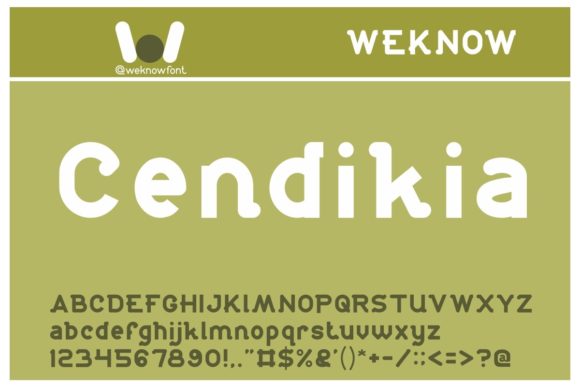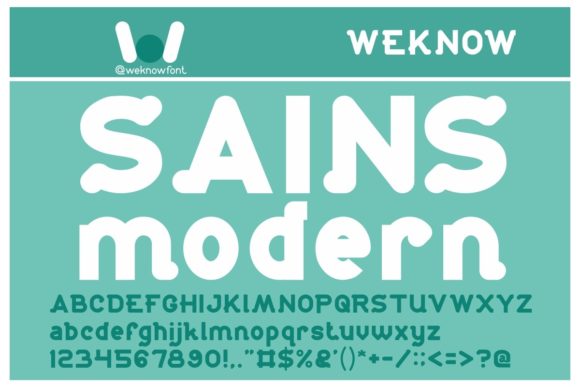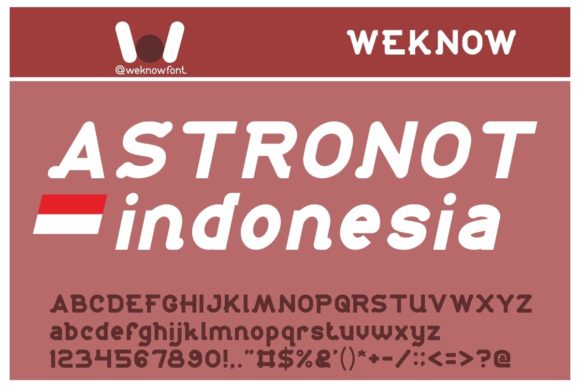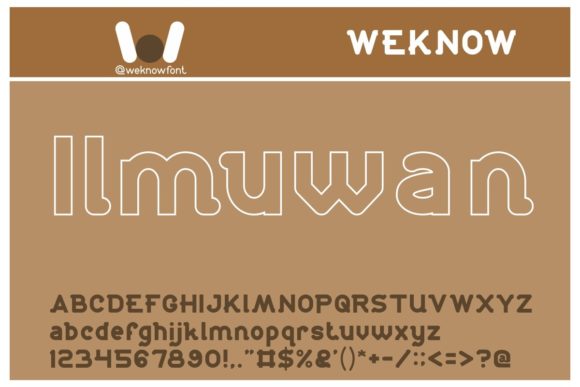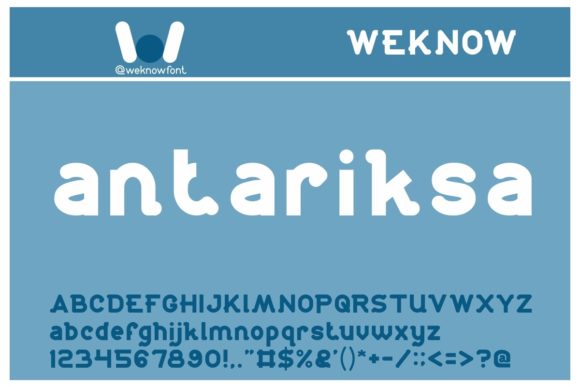
Introducing Antariksa Font: Elevate Your Designs with a Cool, Unique, and Techno-Looking Display Font
In the world of design, fonts play a crucial role in conveying the tone and personality of a brand or creative project. With the vast array of fonts available, it can be challenging to find the perfect one that stands out from the crowd. However, if you’re looking for a font that exudes a cool, unique, and techno vibe, look no further than Antariksa Font. This display font is an incredibly valuable asset to any designer’s font library, and we’re excited to dive into its features and benefits.
What is Antariksa Font?
Antariksa Font is a modern, techno-looking display font designed to add a touch of sophistication and edge to any creative project. Its unique and cool design makes it perfect for designers, crafters, and anyone looking to elevate their visual content. Whether you’re working on a branding project, creating a social media graphic, or designing a website, Antariksa Font is sure to make a statement.
Key Features of Antariksa Font
- Unique and Cool Design: Antariksa Font boasts a distinctive and stylish design that sets it apart from other fonts. Its techno look is perfect for projects that require a modern and edgy feel.
- Display Font: As a display font, Antariksa is optimized for large text sizes, making it ideal for headlines, titles, and other attention-grabbing elements.
- Versatile: Despite its techno look, Antariksa Font is surprisingly versatile and can be used across various industries and design applications.
- Easily Readable: Despite its stylized design, Antariksa Font remains easily readable, even at smaller sizes, making it perfect for body text and other smaller applications.
Benefits of Using Antariksa Font
So, why should you consider adding Antariksa Font to your design arsenal? Here are just a few benefits of using this incredible font:
- Instantly Elevate Your Designs: With Antariksa Font, you can instantly add a touch of sophistication and style to your designs, setting them apart from the competition.
- Perfect for Branding and Marketing: The unique and techno look of Antariksa Font makes it perfect for branding and marketing projects, where you want to make a bold statement.
- Time-Saving: With a font like Antariksa, you can save time and effort in finding the perfect font for your project, allowing you to focus on other creative aspects.
Who Can Benefit from Antariksa Font?
Antariksa Font is an excellent addition to any designer’s font library, but it’s particularly useful for:
- Graphic Designers: Whether you’re working on branding, advertising, or marketing materials, Antariksa Font is a great choice for adding a touch of style and sophistication.
- Web Designers: Use Antariksa Font to create stunning website headers, titles, and other design elements that grab attention.
- Digital Artists and Crafters: If you’re creating digital art, illustrations, or crafts, Antariksa Font can add a unique and techno touch to your work.
- Marketers and Social Media Managers: Antariksa Font is perfect for creating engaging social media graphics, ads, and other marketing materials that require a bold and attention-grabbing font.
In conclusion, Antariksa Font is an incredible asset to any designer’s font library. Its unique, cool, and techno look makes it perfect for a wide range of design applications, from branding and marketing to digital art and crafting. With its versatility, readability, and cross-platform compatibility, Antariksa Font is sure to elevate your designs and help you stand out in a crowded creative landscape. So why wait? Add Antariksa Font to your collection today and experience the difference it can make in your designs!